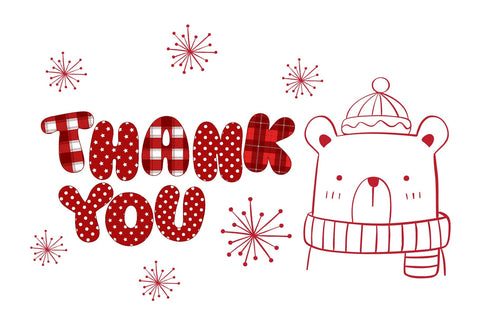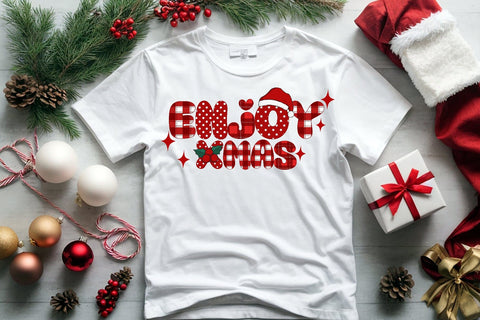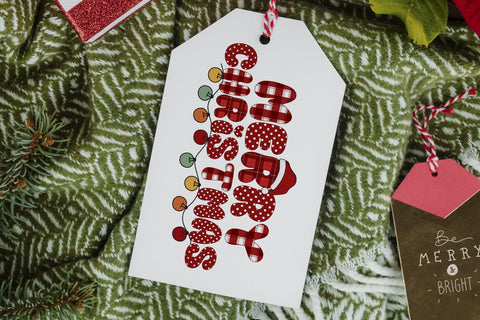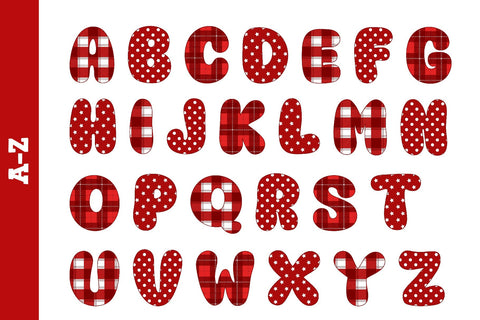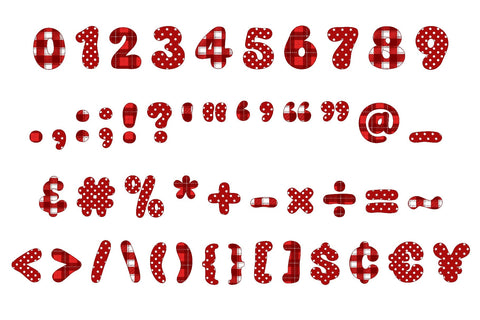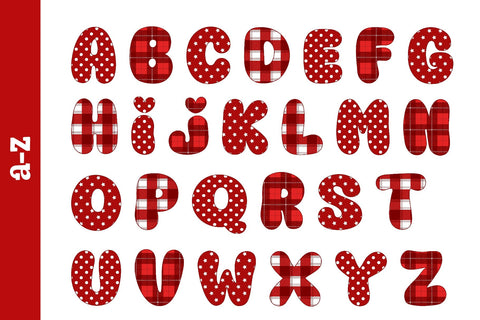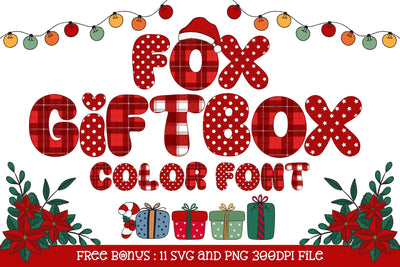
Fox Giftbox Color Font
Introducing our charming and versatile Fox Giftbox, the perfect addition to your creative endeavors and gifting needs! This delightful product features a stunning [Color Font] that beautifully mimics the aesthetics of gift wrapping paper, making it an excellent choice for adding a touch of festive elegance to your projects. Elevate your designs and create memorable, joy-filled moments with the Fox Giftbox. Let your creativity run wild and watch as this charming font adds a unique and festive flair to your projects. Whether you're a professional designer or a DIY enthusiast, this product is your key to turning ordinary designs into extraordinary, unforgettable gifts and creations.